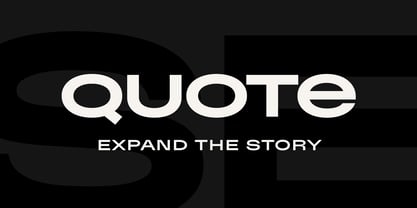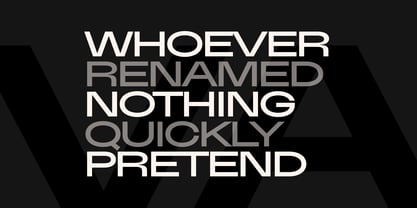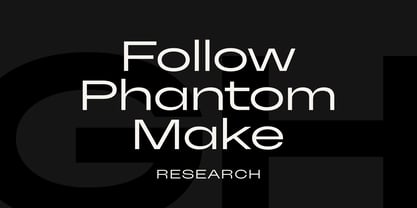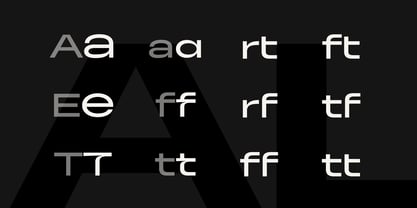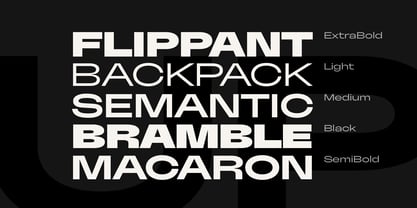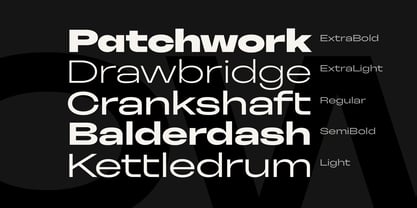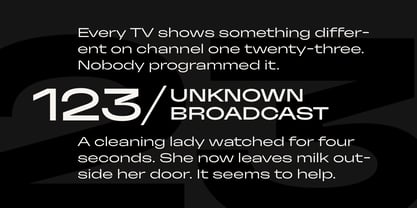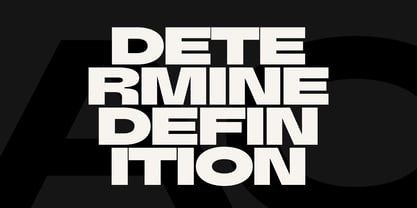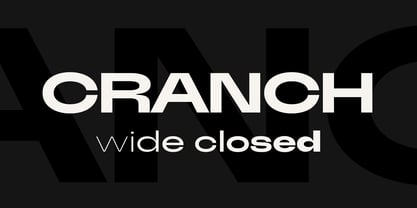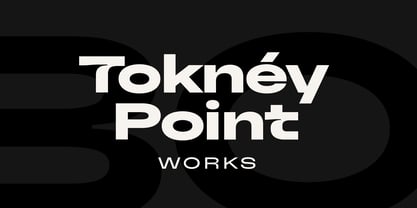
Cranch
by Roman Melikhov
The Cranch Font Family was designed by Roman Melikhov and published by Roman Melikhov. Cranch contains 10 styles and family package options.
Cranch is a modern geometric grotesk typeface family in an extended width, featuring 9 weights from Thin to Black, along with a fully functional variable font. Each style includes a set of stylistic alternates designed to highlight and personalize individual letters within your text. Each font contains lowercase and uppercase Latin letters, alternate characters, basic multilingual letters, numbers, extra characters and punctuation.
About Roman Melikhov
Roman Melikhov, a type designer with vast experience in logo creation, channels the insights gained from his logo work into his font designs. His process involves unexpected creative solutions and offbeat methodologies. He prioritizes originality and identity, enabling him to infuse even minimalist typefaces with unparalleled uniqueness. Meticulous attention to detail during font production ensures the utmost accuracy in the final outcome.